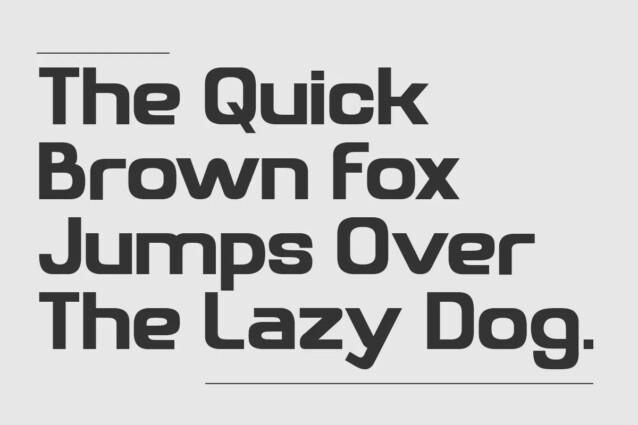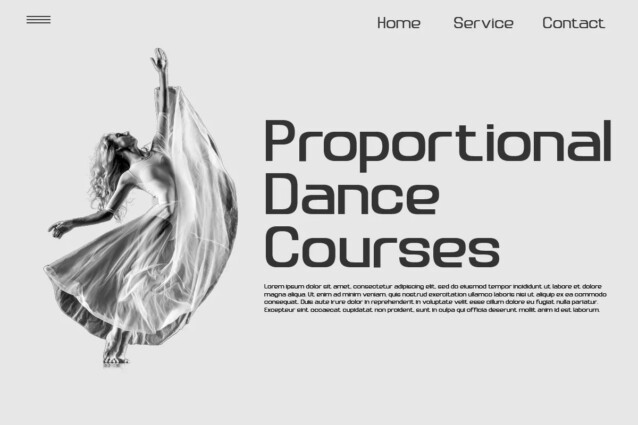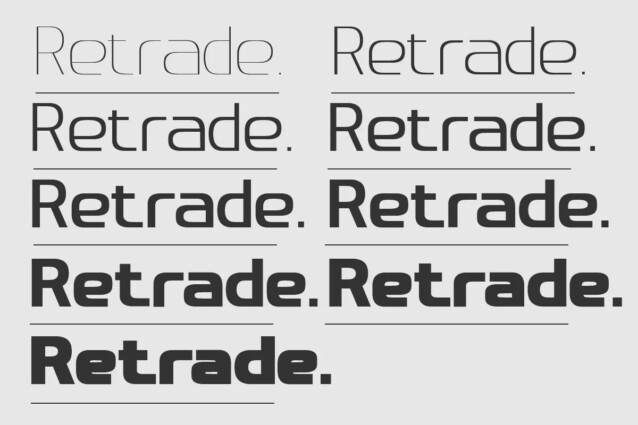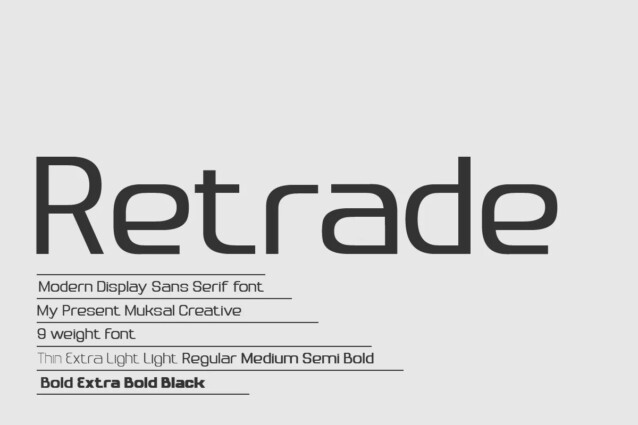
Retrade Font is a geometric sans serif font family crafted & designed by Muksal Creative. Retrade has 9 families Regular font, starting from the small thin to the largest Black. This typeface is versatile and can be used successfully in magazines, posters, branding, websites.